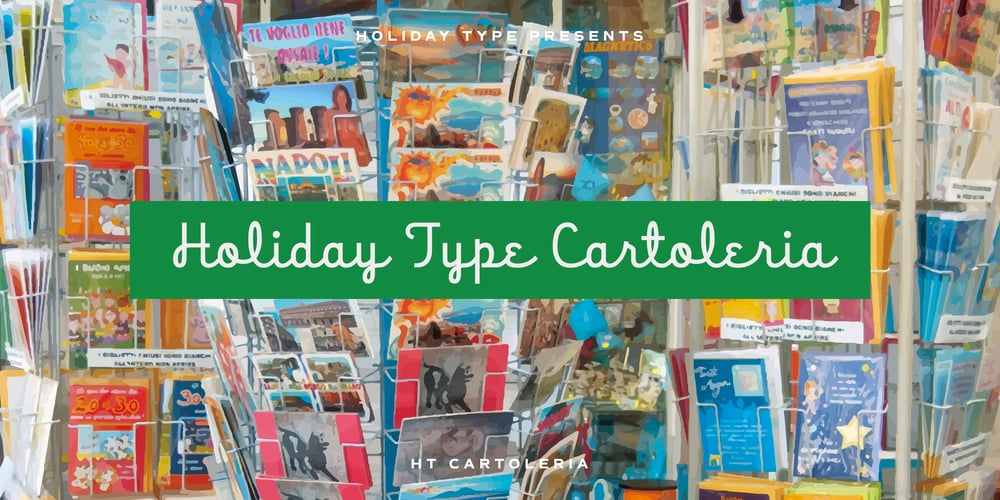
HT Cartoleria Font Family was designed by Ryoichi Tsunekawa and published by Dharma Type. HT Cartoleria contains 1 styles and family package options. This font has a lovely roundish shape and gives us cute and relax impression. But because it is upright, it has a well-ordered atmosphere. Holiday Type Project offers retro hand drawing scripts. Inspired by retro script on shopfront lettering, wall paint advertisements in Italy around 1950s. Check out the script fonts from Holiday Type!